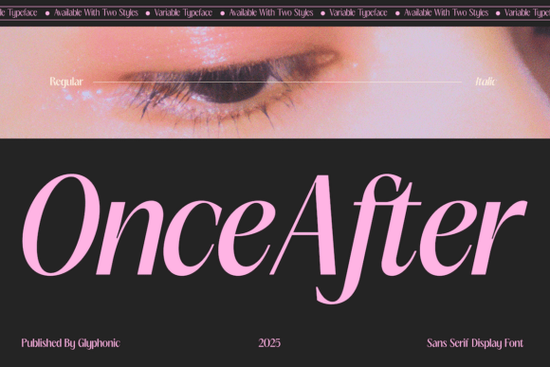
If you're looking for a display font that feels both modern and timeless something that works as well on a luxury skincare label as it does in a boutique website headline you’ll want to try Once After Font. It’s not just another sans-serif; it’s a variable typeface with quiet confidence. Its high-contrast curves, open apertures, and graceful bowl shapes give it a refined editorial presence like a serif’s elegance translated into clean, minimalist lines. Designers who’ve used it say it bridges the gap between fashion-forward clarity and subtle warmth, especially at larger sizes.
What makes Once After different from other sans-serif display fonts?
Most sans-serifs aim for neutrality. Once After leans into character without sacrificing readability. Its weight transitions are smooth and precise, thanks to its variable design. That means you can dial in exactly the right thickness for a mobile banner, a printed magazine spread, or a social media graphic no need to switch between separate font files. The italic style isn’t just slanted; it’s thoughtfully redrawn, preserving rhythm and balance.
The PUA encoding is another practical plus: all swashes, alternates, and stylistic sets appear where you expect them in the Glyphs panel or via OpenType features in apps like Illustrator or Affinity Designer. No digging through character maps or workarounds.
Where does it work best?
Once After shines where tone matters most:
- Premium beauty branding think clean ingredient lists, minimalist product tags, or Instagram story text overlays
- Fashion editorials and lookbooks its large apertures keep letters legible even at small point sizes in tight columns
- Small business websites and landing pages especially for boutiques, studios, or consultants who want calm sophistication over loud personality
- Print-on-demand products greeting cards, art prints, and apparel designs benefit from its balanced spacing and strong visual identity
It’s not meant for body text or long paragraphs and that’s intentional. Like Simple Aesthetic Font, it’s built for impact, not endurance. If you’re pairing it with a neutral companion, consider something like Gunken Font for contrast: Gunken’s geometric structure balances Once After’s fluid curves nicely.
You’ll also find it shares some DNA with Once After Font’s sibling styles many users layer its regular and italic versions for subtle hierarchy in headlines, or use alternate glyphs to add quiet variation to repeated words (like “new” or “edit” in a fashion campaign).
Real-world tips for getting started
Start simple. Try setting a single word “Luxe”, “Edit”, or your brand name in Once After at 48–72pt. Adjust the variable weight slider just slightly heavier than default. See how the contrast lifts the letterforms without making them feel rigid.
If you’re using it for digital interfaces, test rendering across devices. Its open counters help it stay crisp on screens even older Android browsers handle it well. For print, stick to 100+ DPI output and avoid ultra-thin weights below 24pt unless you’re using it as a large-format headline.
And if you’re exploring alternatives, the OnceAfter font family includes both regular and italic in one package no extra purchases needed for basic pairing.
A quick checklist before you use it
- ✅ Confirm your software supports variable fonts (most current versions of Adobe apps, Affinity, Figma, and modern browsers do)
- ✅ Use PUA-encoded glyphs only when needed don’t overuse swashes in formal contexts like legal disclaimers or contact info
- ✅ Pair it with a highly legible, low-contrast sans-serif for body copy (e.g., Inter, Manrope, or even Simple Aesthetic Font at smaller sizes)
- ✅ Test color contrast its thin strokes can fade in light-on-light combinations, especially at smaller sizes